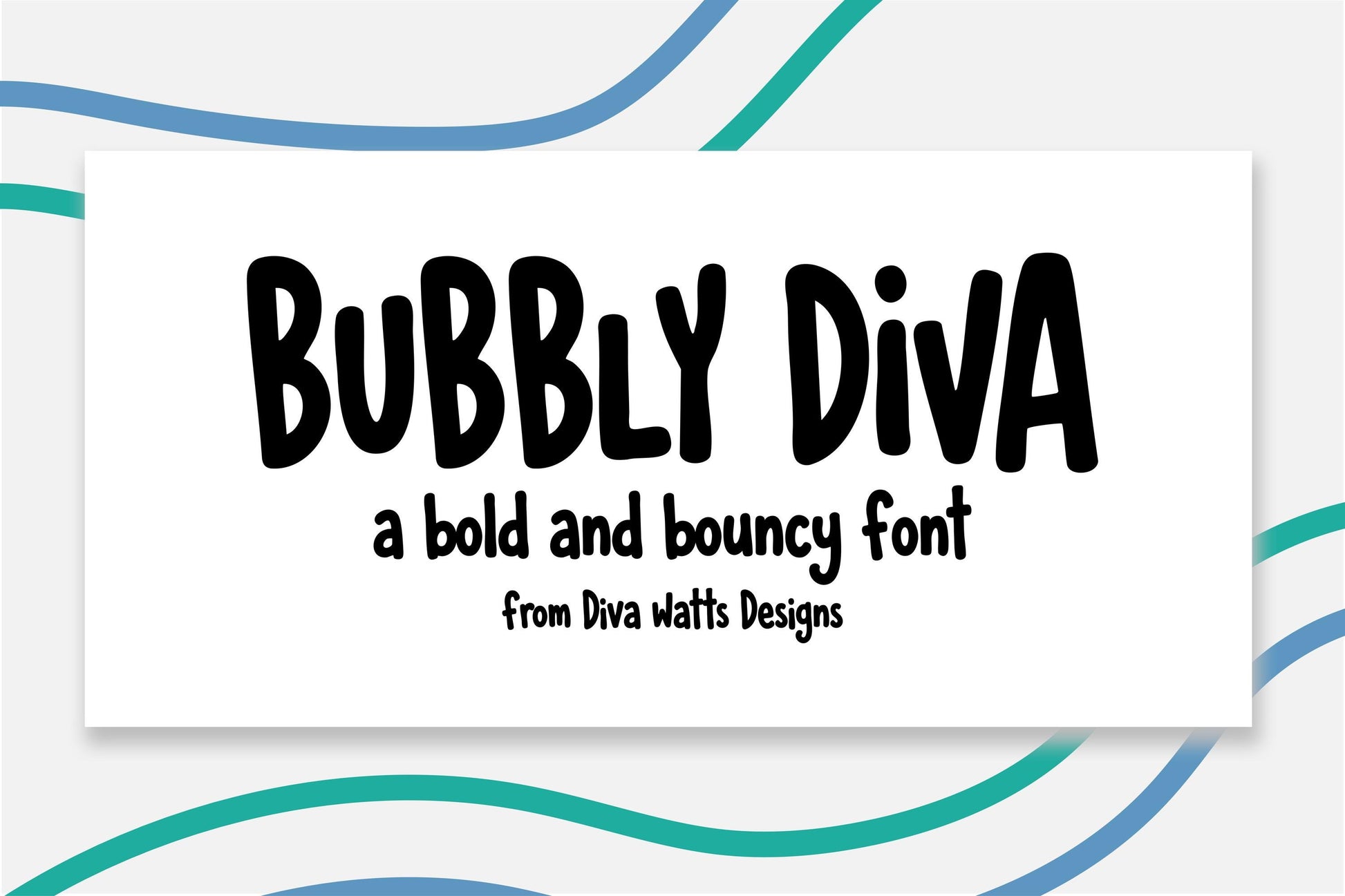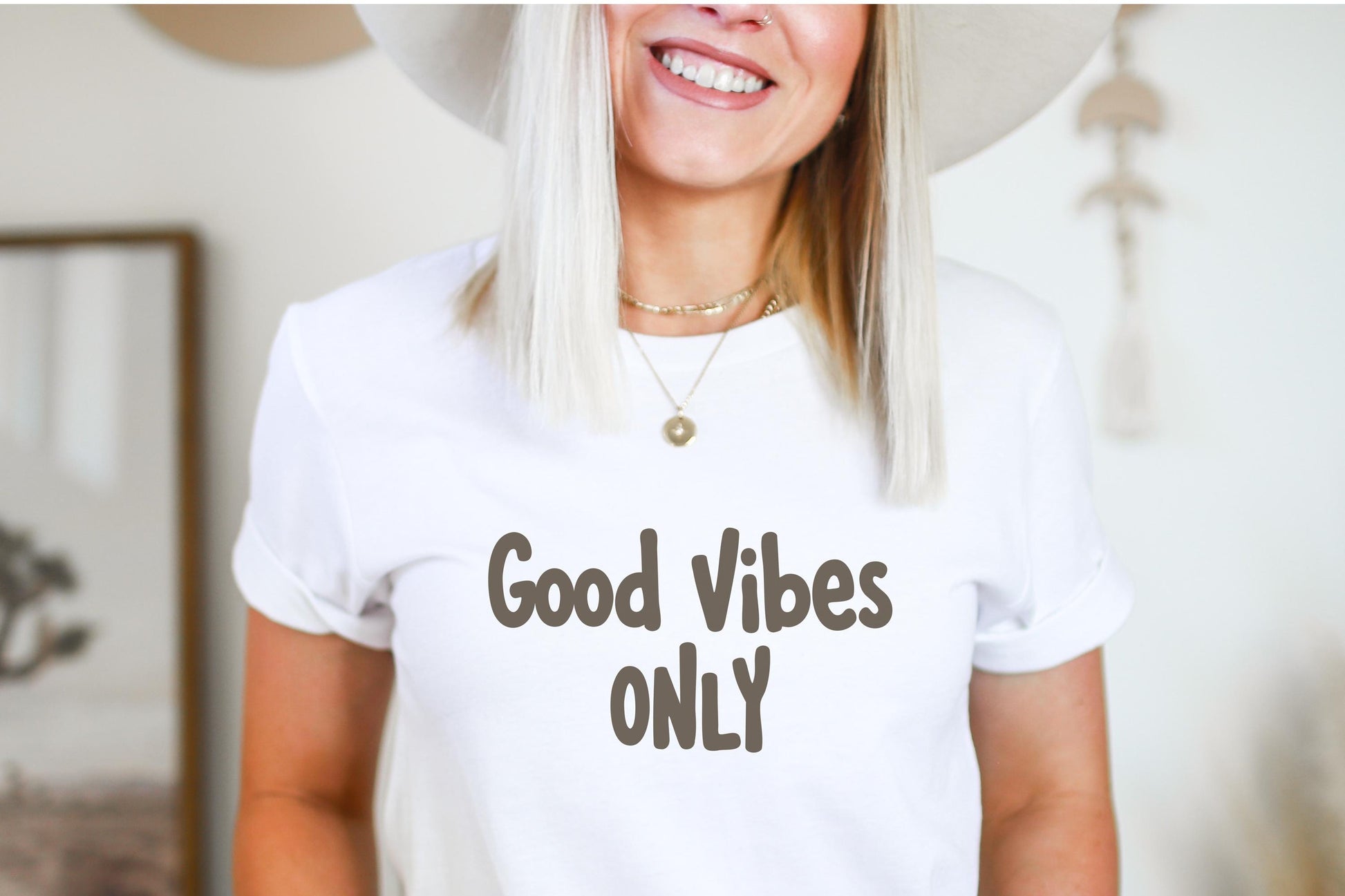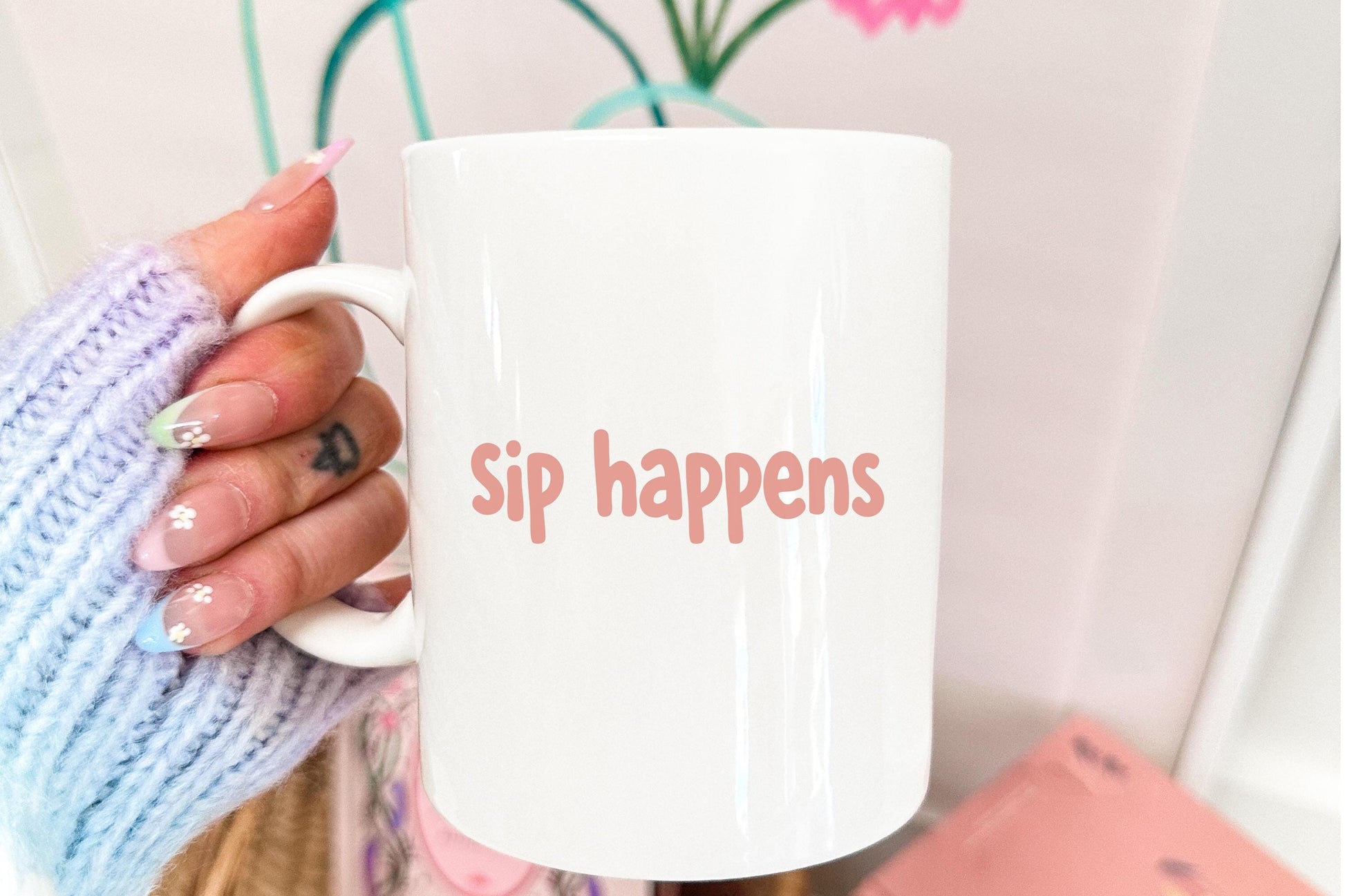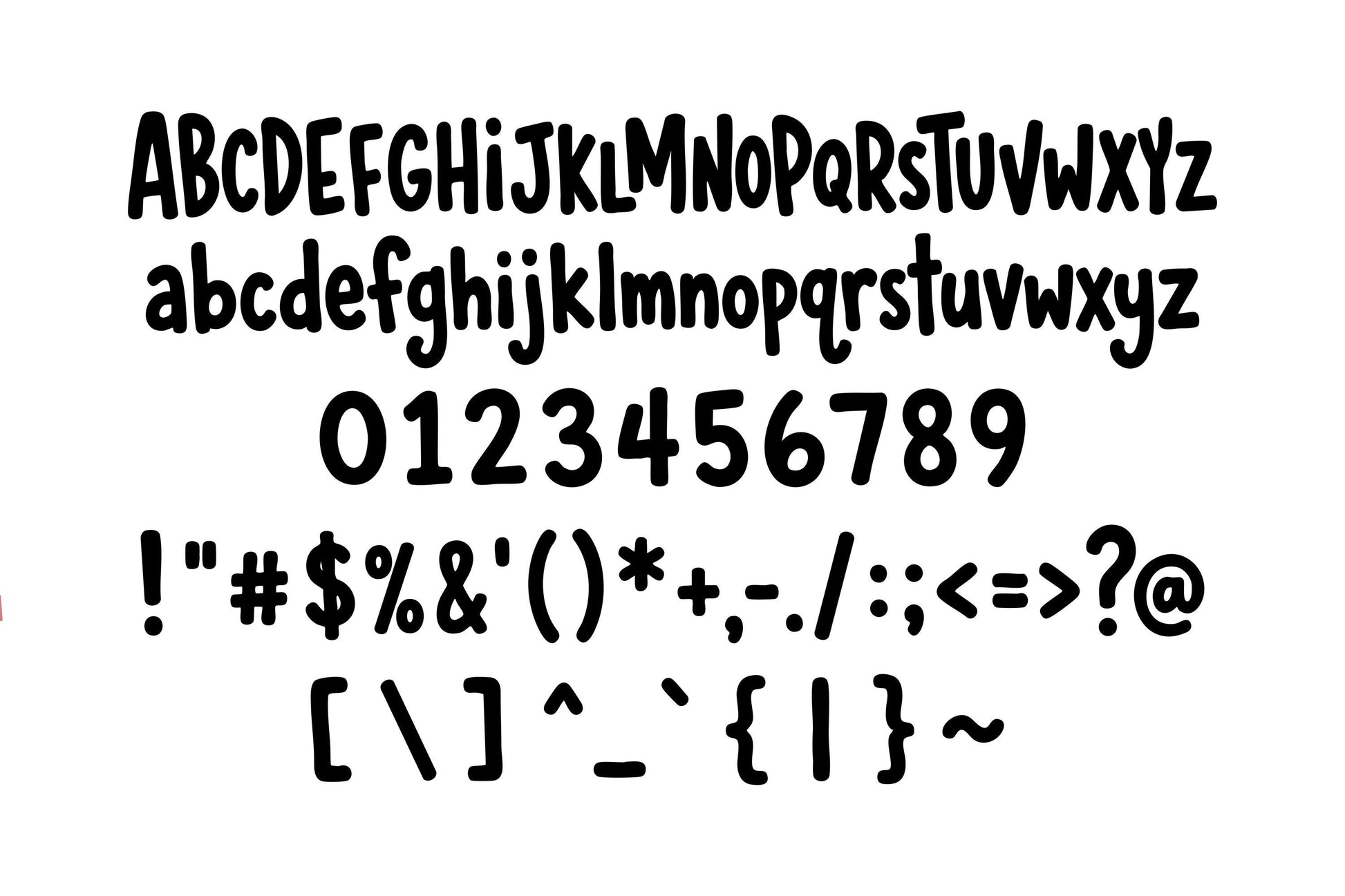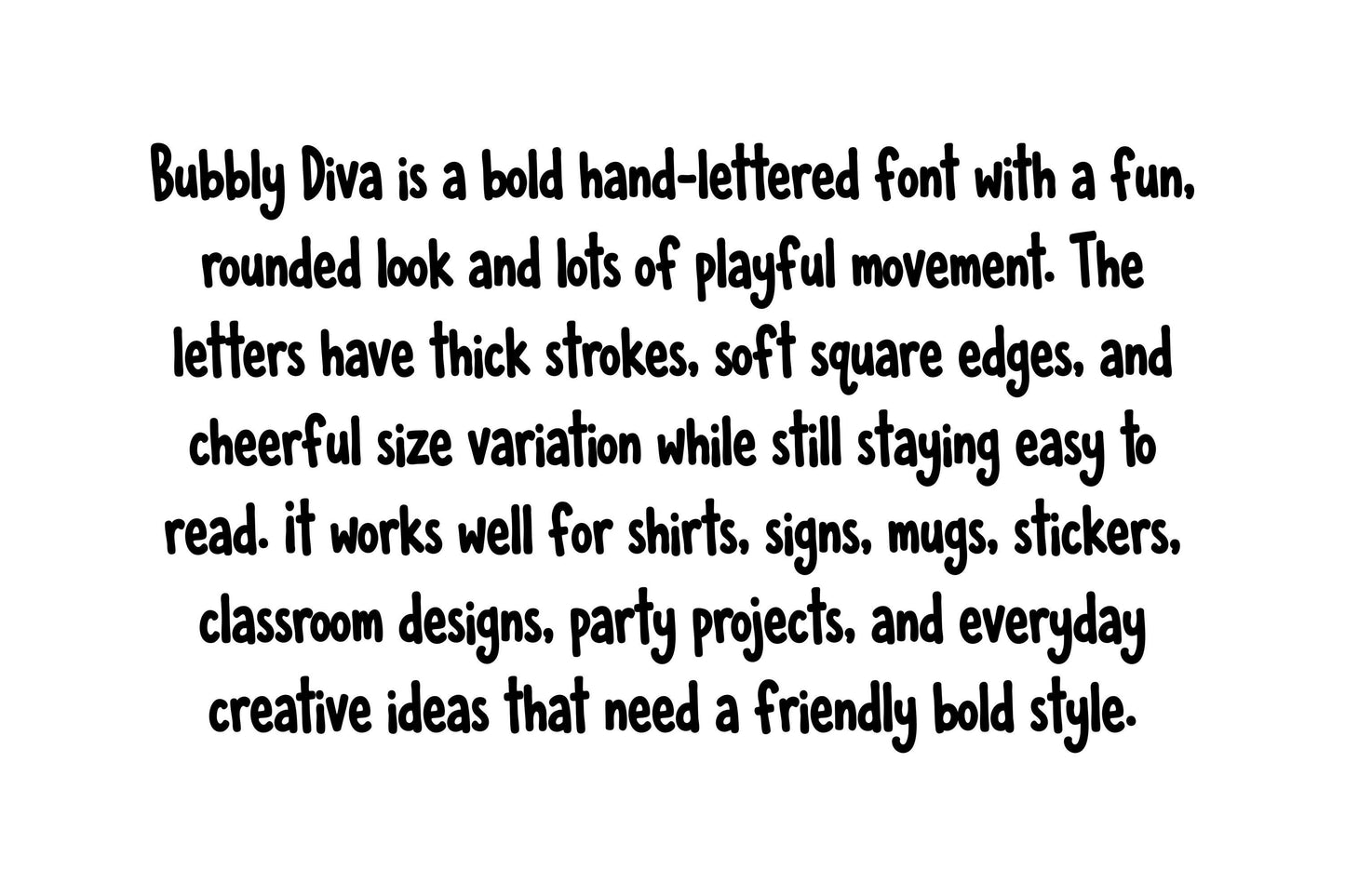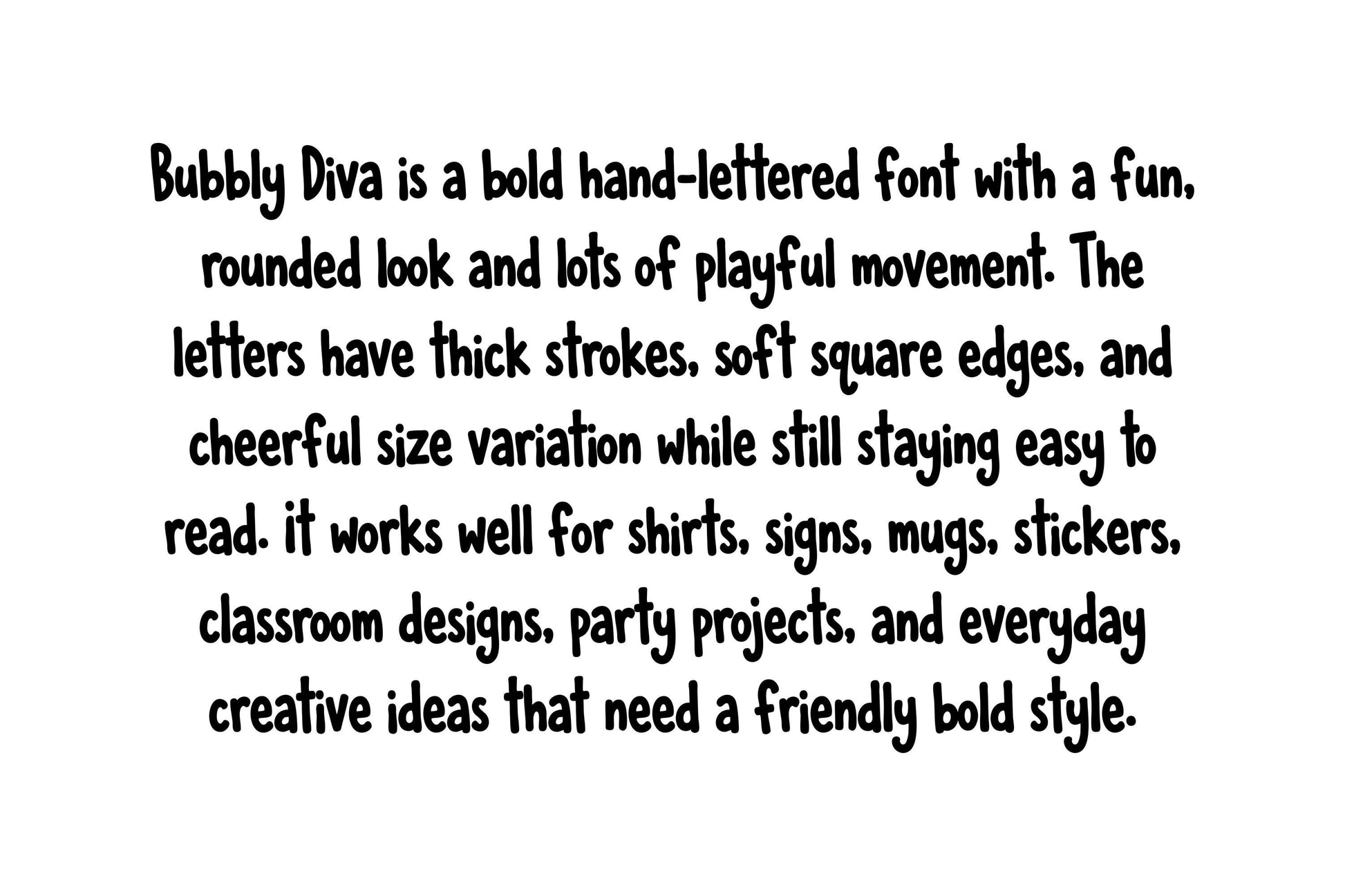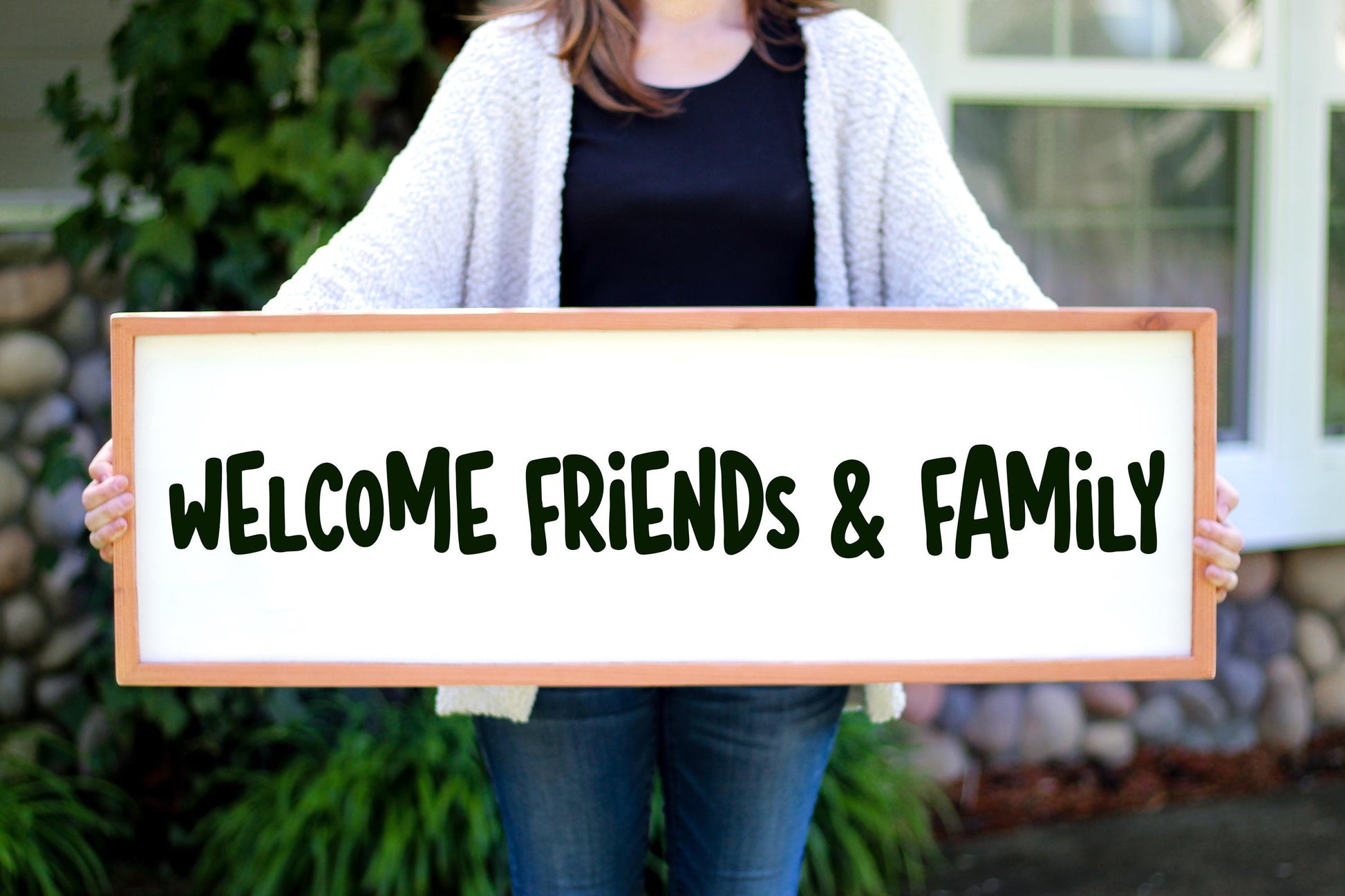
Handwritten Font Bubbly Diva Bold Hand Lettered OTF For Stickers, Labels, Signs, Invitations, Cards, And Personal Projects
Bubbly Diva is a bold handwritten font designed for personal projects, printable designs, stickers, labels, signs, invitations, and cards. This hand-lettered font delivers a playful, eye-catching look that helps your creative projects stand out while remaining easy to read.
Create something personal, polished, and beautifully lettered with this Diva Watts Designs font.
Hand-lettered by Diva Watts Designs
Original hand-lettered font created by Diva Watts Designs
Designed to help your lettering projects feel polished and unique